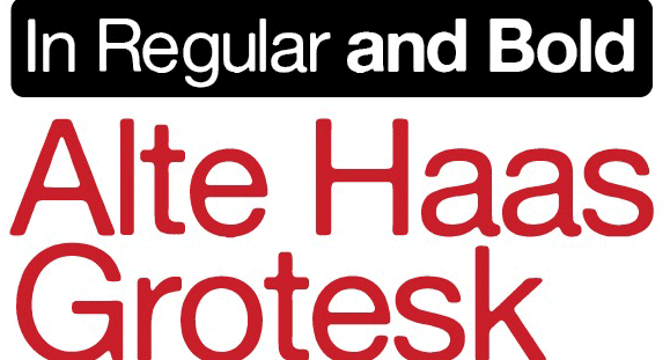
Alte Haas Grotesk is a free font of the day with a charming throwback design by Swiss type designer François Rappo in 2009, inspired by 19th-century grotesque typefaces.
The font stands out with soft, rounded edges, slightly condensed proportions, and a touch of quirkiness, giving it a warm and approachable vibe.
It is a revival of early sans-serifs like Akzidenz-Grotesk and Helvetica’s predecessors, featuring subtle imperfections and a handcrafted feel.
Alte Haas Grotesk is suitable for headlines and body text due to its compact yet readable design, making it a special addition to the world of typography.